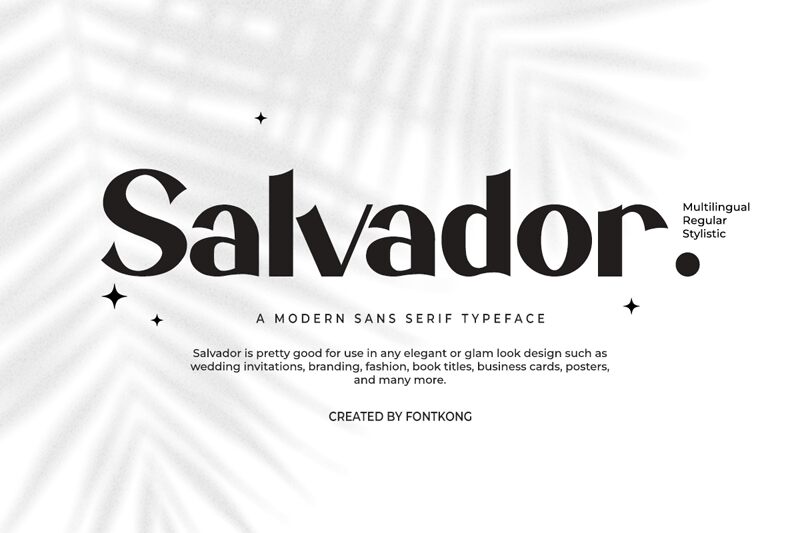
Salvador font by Kong Font is a sleek and modern sans serif typeface with a sophisticated and elegant nature. This versatile, stylish, and contemporary font requires nothing but your imagination to get it going. It automatically elevates any design it is a part of. Be it print designs such as posters and book covers or digital designs such as web or mobile applications.
Use the font in branding projects to create unforgettable logos, product packaging, stationery, labels, and costume designs. Salvador can also be used for your blog or social media content in headers and stand-out posts.